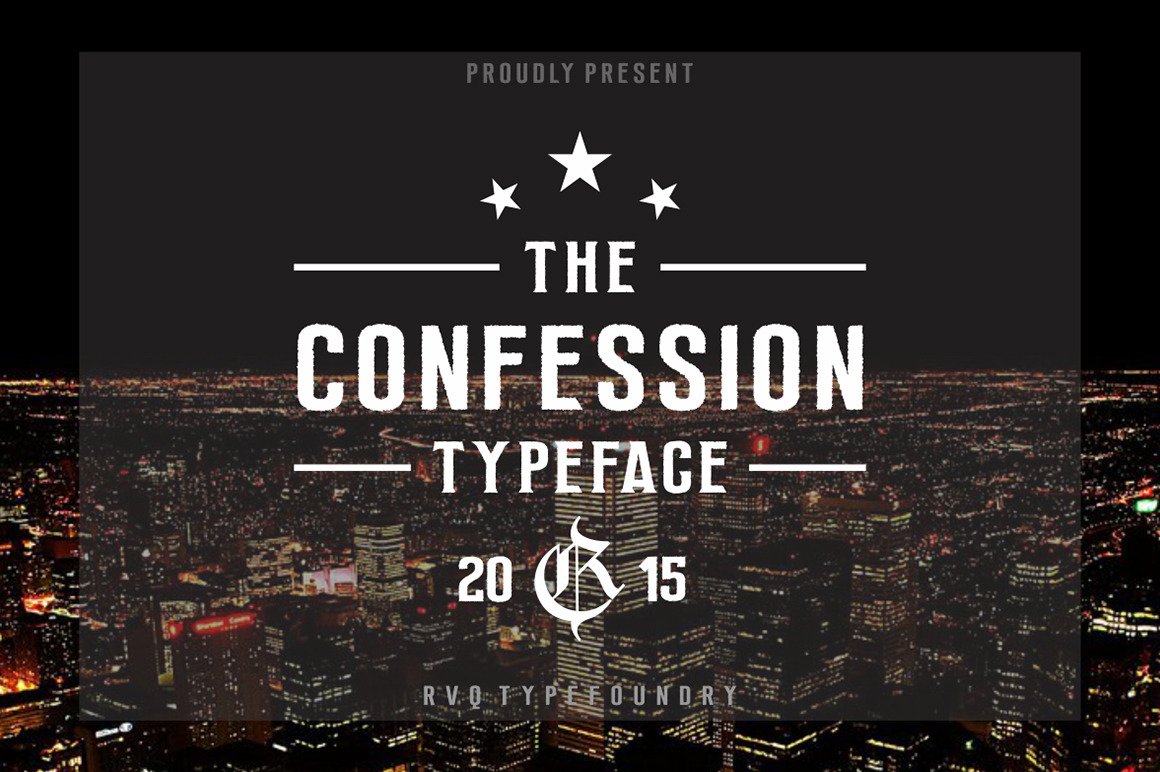
Confession typeface (introsale)
Confession is new font from Rvq Typefoundry, new typeface with classy, elegant and vintage feel character set. The Confession includes a full set of capital and lowercase letters, as well as multi-lingual support, currency figures, numerals, punctuation & some extra glyphs.
Confession typeface
Confession serif
Character Set A-Z
Numerals & Punctuations
Accents (Multilingual characters)
Confession is suitable font for many creative products & designs.